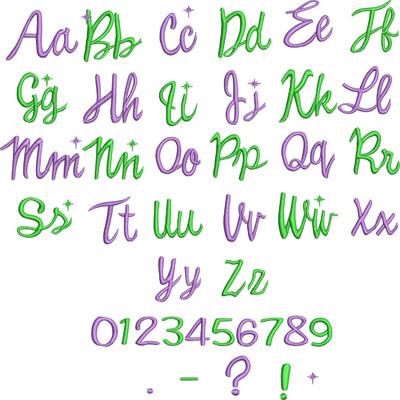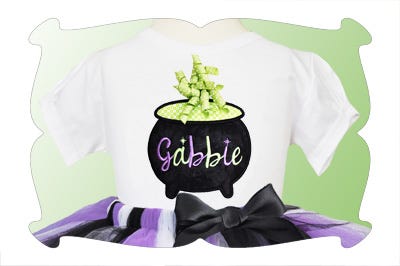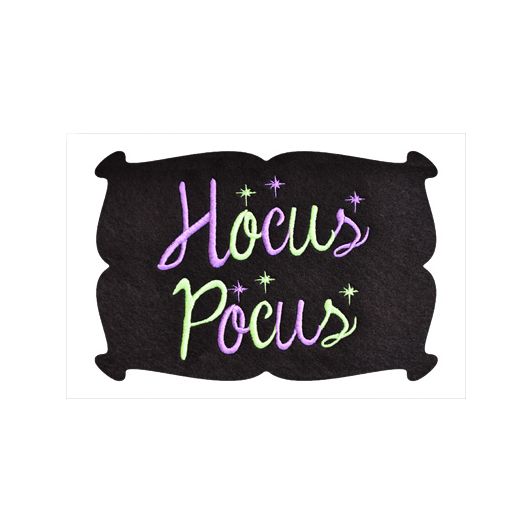
Hocus Pocus Satin Stitch Embroidery Font
Hocus Pocus Embroidery Font
Isn't this a fun font for Halloween and Christmas?
It's perfect for Trick or Treat bags and Halloween outfits!
Capital letters A thru Z, lower case letters a thru z, numbers 0 thru 9 and punctuation in 5 sizes: 1.00, 1.25, 1.50, 1.75 and 2.00 inches. Size refers to the average height of the letter in the set.